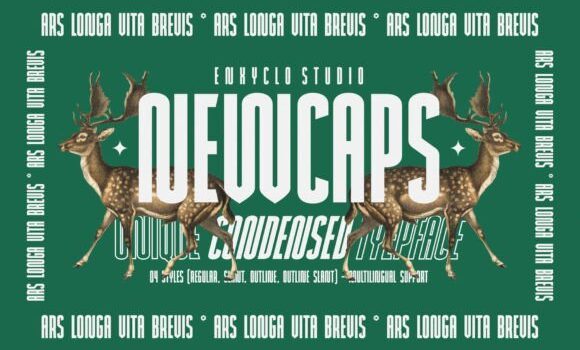
newcaps
Newcaps Font – Free Download Introduction to Newcaps Font Newcaps is a cool and interesting display font. 📸 Preview Gallery 6 images 📌 Product Name Newcaps Font 👤 Author Enxyclo 📂 Category Explore ⬇️ Download Newcaps Font FREE Free Download